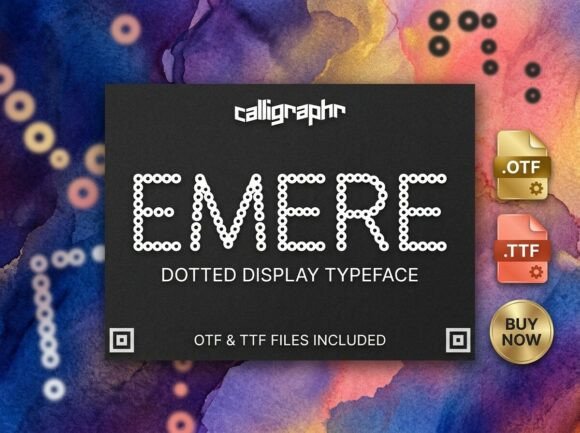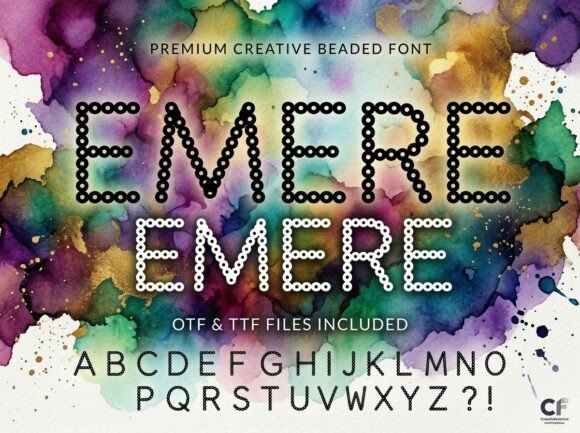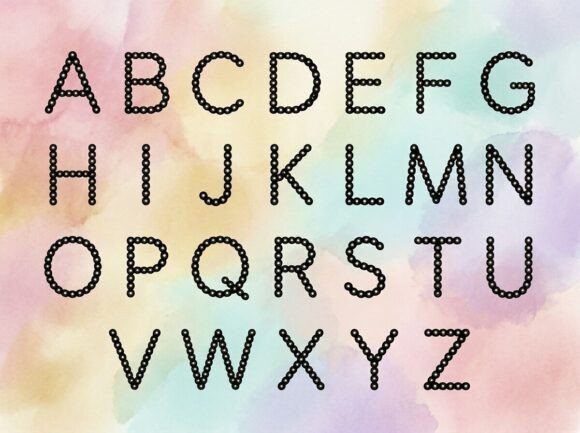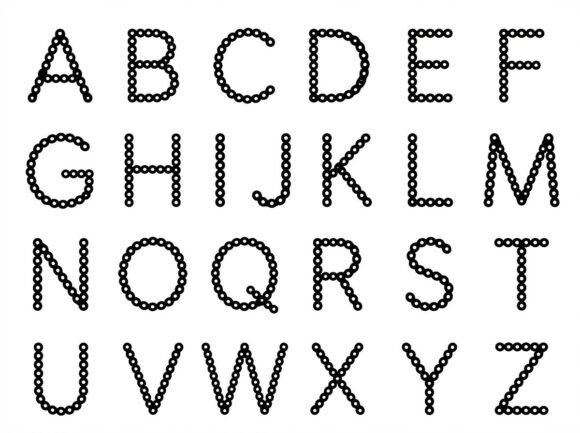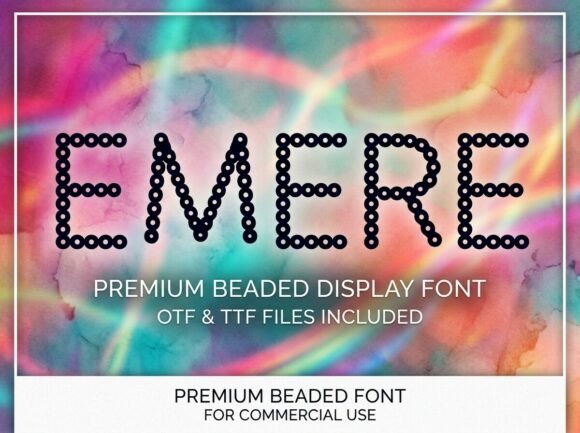
Introducing Emere Font: A Stunning Decorative Display Font
Are you tired of using the same old fonts for your creative projects? Look no further than Emere Font, a unique and artistic display font that’s designed to turn heads. With its strong visual personality and decorative elements, this font is perfect for creators who want to add a touch of elegance and sophistication to their work.
What Makes Emere Font Special?
Emere Font is a decorative display font that’s specifically designed to be the center of attention. Its unique artistic elements and strong visual personality make it perfect for bold headlines, artistic logos, and creative packaging. Whether you’re a designer, craftsperson, or DIY enthusiast, this font is sure to elevate your creative projects to the next level.
Key Features of Emere Font
- Unique Artistic Elements: Emere Font features unique artistic elements that set it apart from other fonts. Each letter is carefully crafted to create a visually stunning effect that’s sure to grab attention.
- Strong Visual Personality: This font has a strong visual personality that’s perfect for creators who want to make a statement. Whether you’re designing a logo, headline, or packaging, Emere Font is sure to leave a lasting impression.
- Versatile: Emere Font is versatile enough for use in a variety of creative projects, from bold headlines and artistic logos to creative packaging and more.
- Professional and Polished Finish: Despite its decorative nature, Emere Font maintains a professional and polished finish that’s perfect for use in high-end creative projects.
⚠️ IMPORTANT NOTE BEFORE PURCHASE: Emere Font is an ALL-CAPS (Uppercase Only) display typeface. It does not include lowercase letters. It is specifically designed for high-impact headlines, logos, and decorative initials where every letter is a work of art.
Why Choose Emere Font?
There are many reasons why Emere Font stands out from the crowd. Here are just a few:
- Unique and Eye-Catching: Emere Font is a unique and eye-catching font that’s sure to grab attention. Its decorative elements and strong visual personality make it perfect for creators who want to make a statement.
- High-Quality: Emere Font is a high-quality font that’s designed to deliver exceptional results. Its professional and polished finish makes it perfect for use in high-end creative projects.
How to Use Emere Font
Emere Font is perfect for use in a variety of creative projects, including:
- Headlines and Titles: Use Emere Font to create bold and eye-catching headlines and titles that grab attention.
- Logos and Branding: Emere Font is perfect for use in logos and branding, where its unique artistic elements and strong visual personality can help to create a lasting impression.
- Packaging and Product Design: Use Emere Font to add a touch of elegance and sophistication to your packaging and product design.